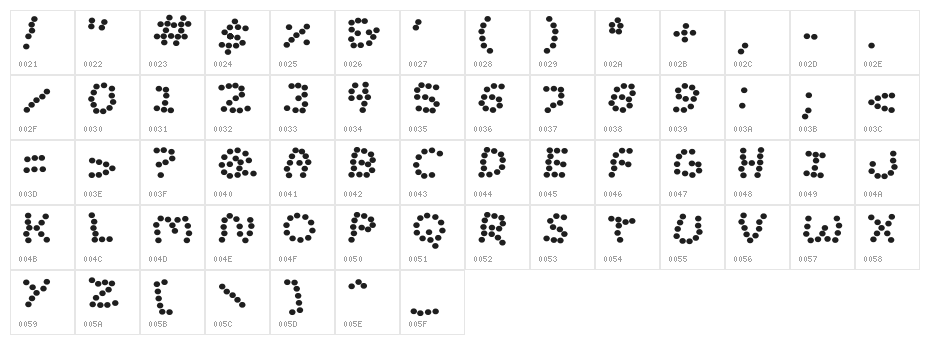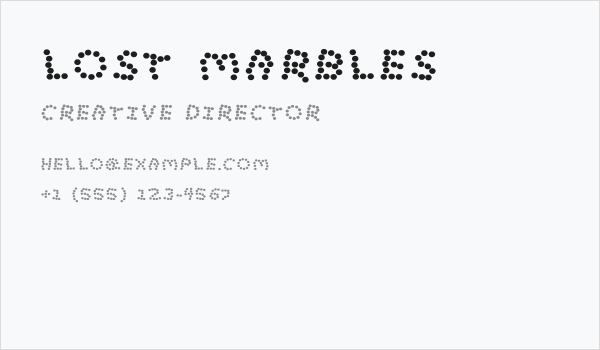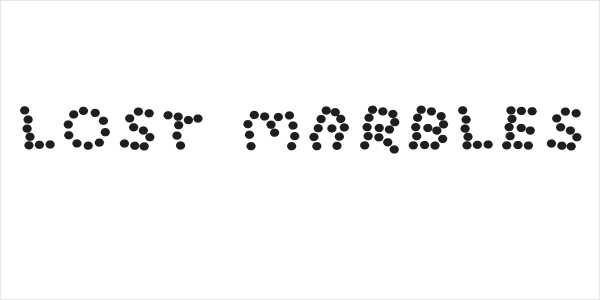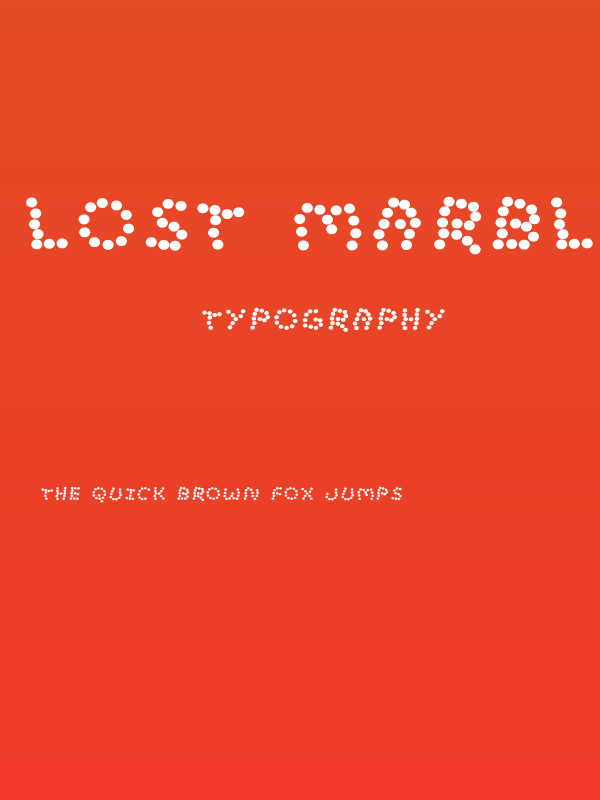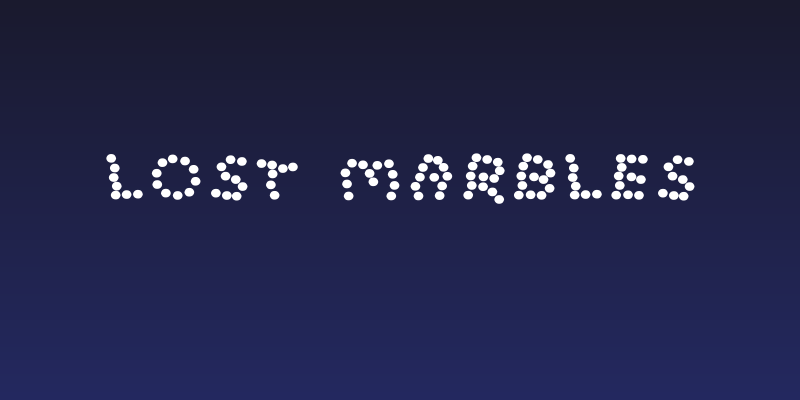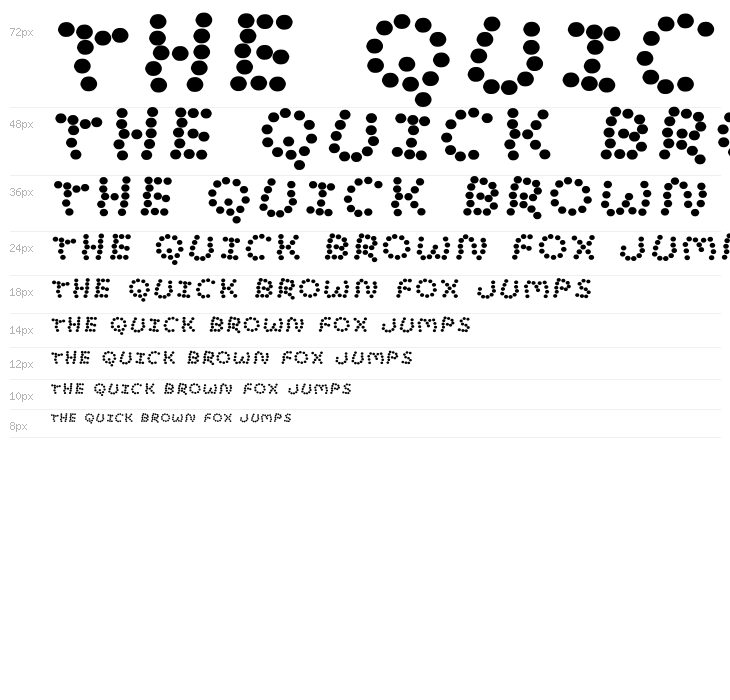
Lost Marbles Font
This playful and unique font is composed entirely of small, evenly spaced dots that form each character. The design gives a sense of whimsy and creativity, making it stand out with its dotted pattern. Each letter and number is crafted with precision, ensuring readability while maintaining its distinct style. The font's dotted structure adds a playful and modern touch, suitable for projects that require a fun and engaging aesthetic. Its uniform dot size and spacing create a consistent and harmonious look across all characters.
Proposed ProjectsIdeal for children's books, playful branding, creative posters, and party invitations.